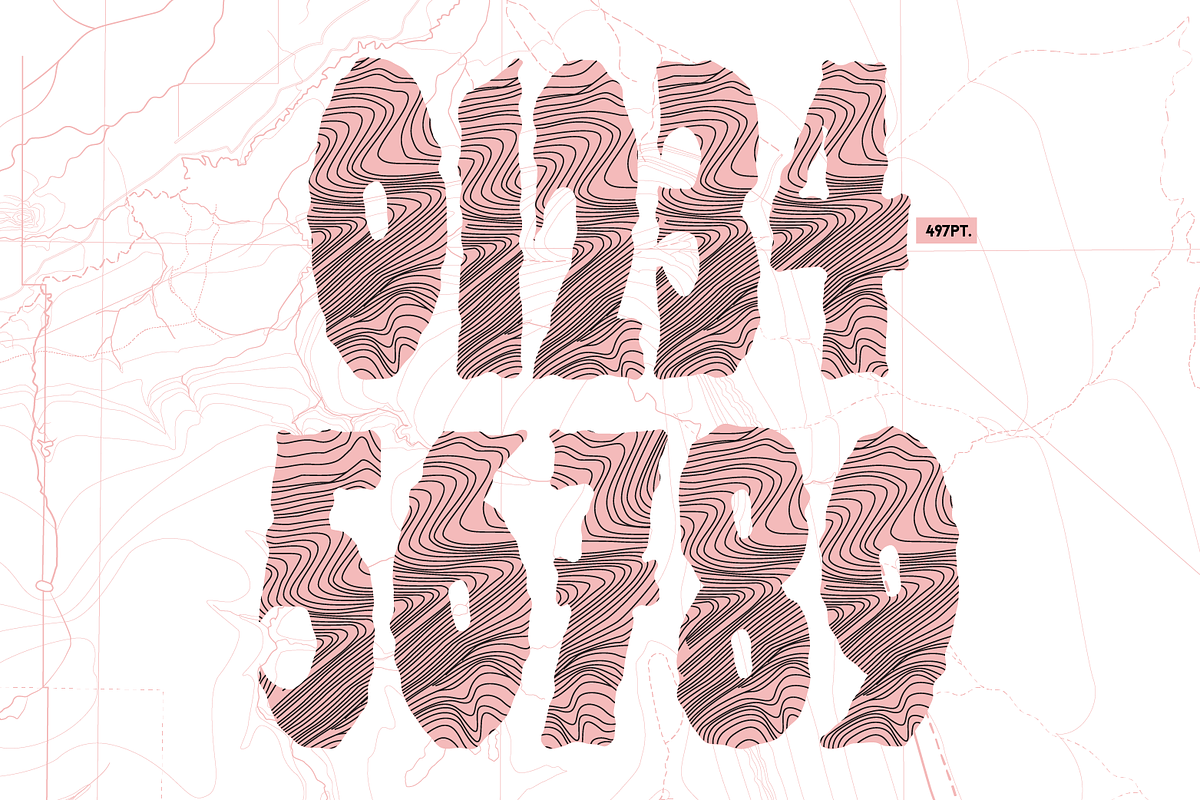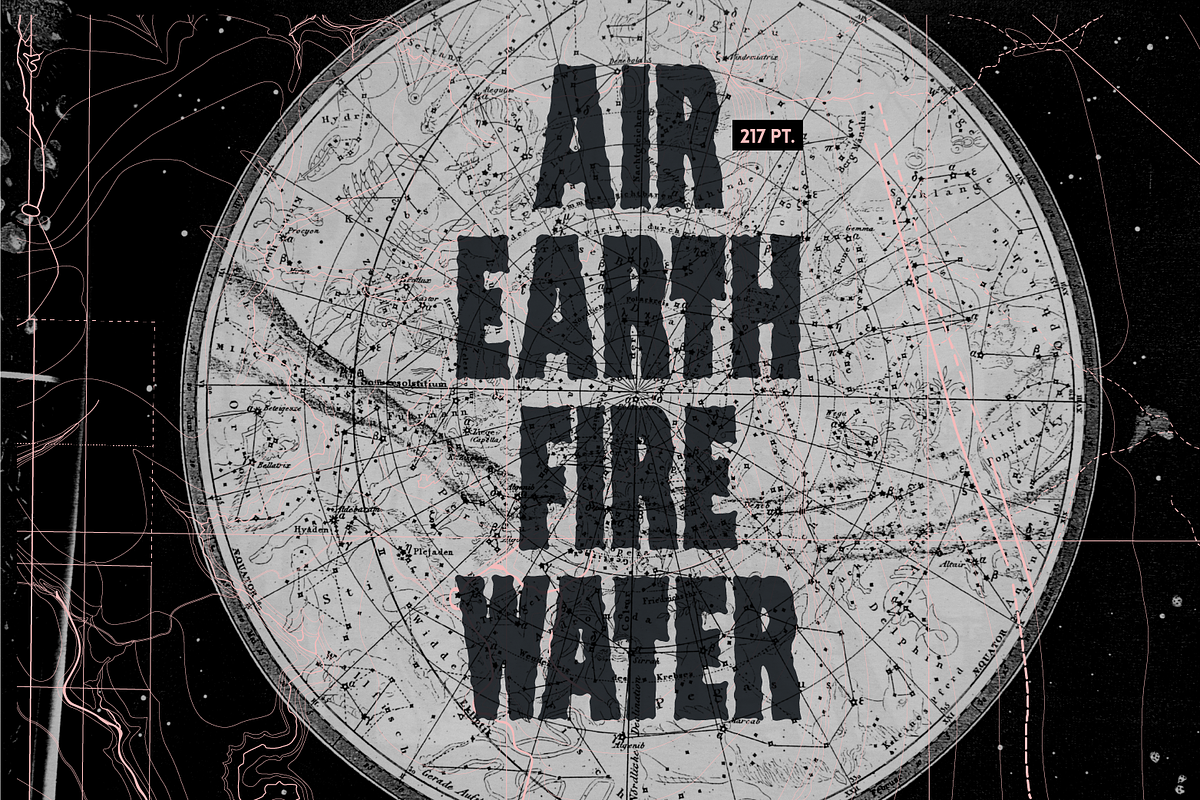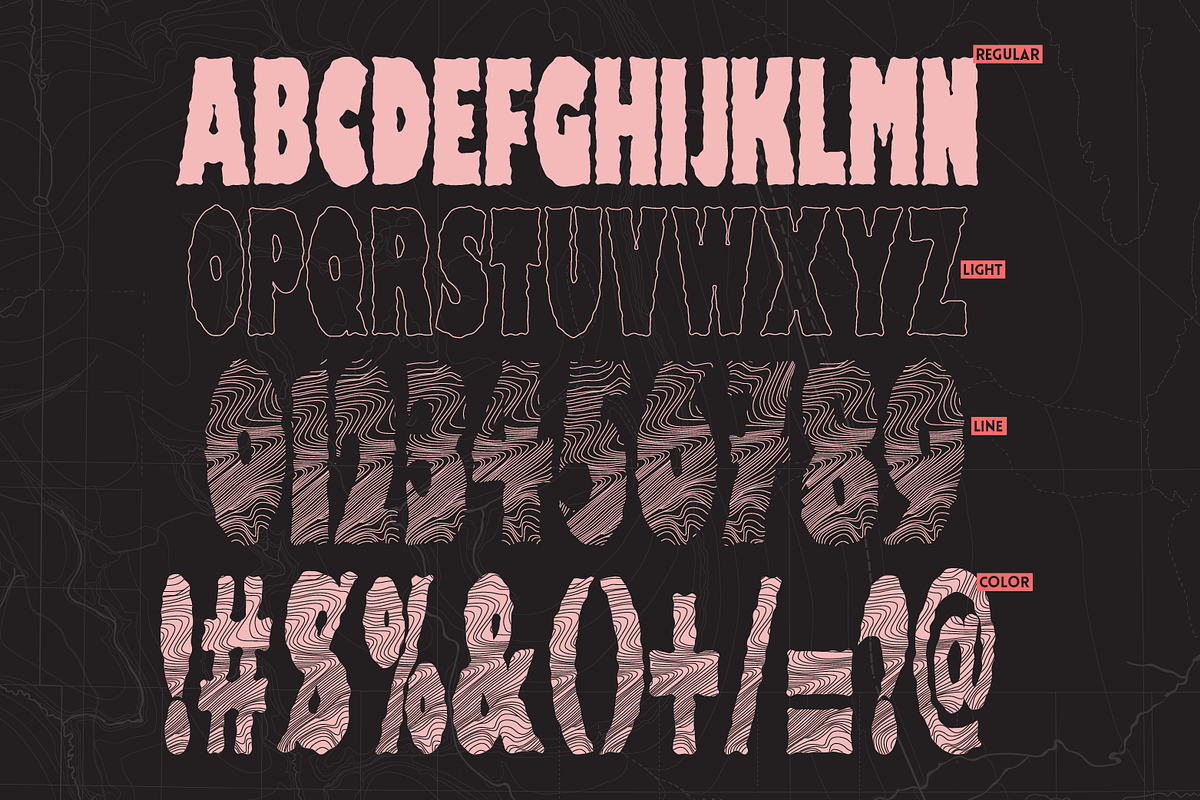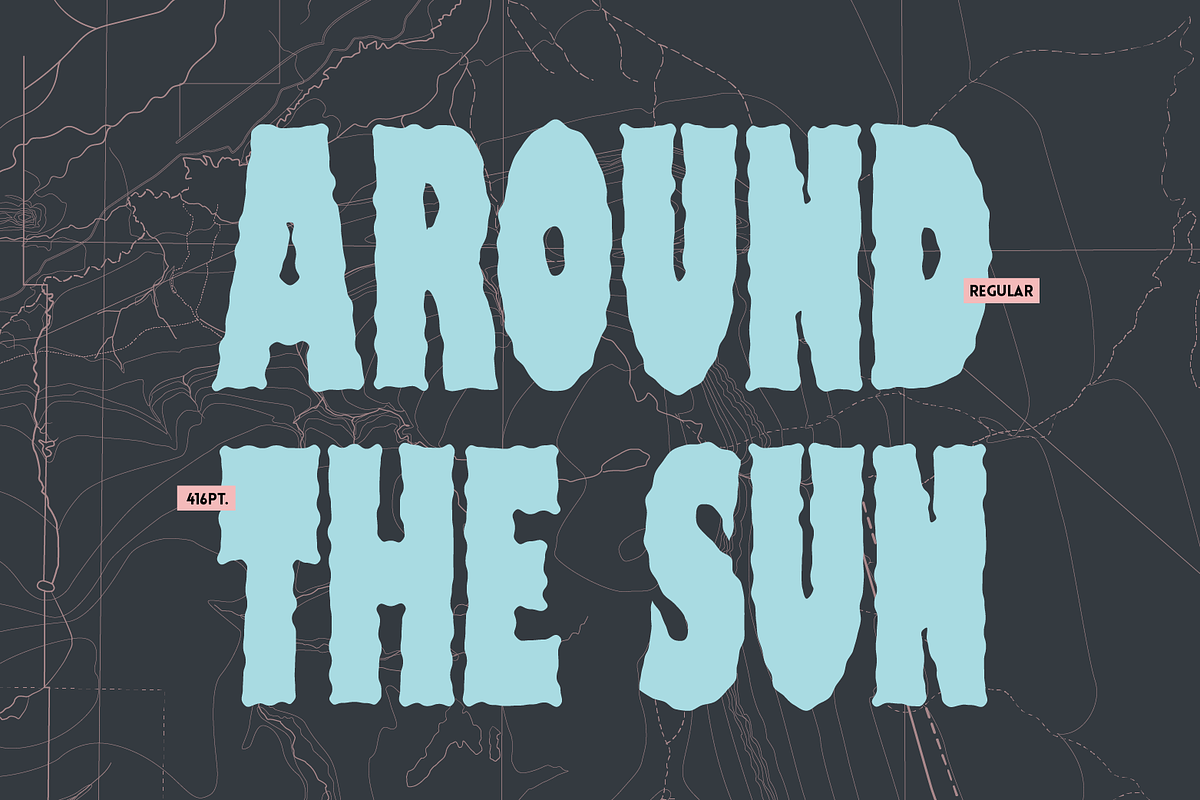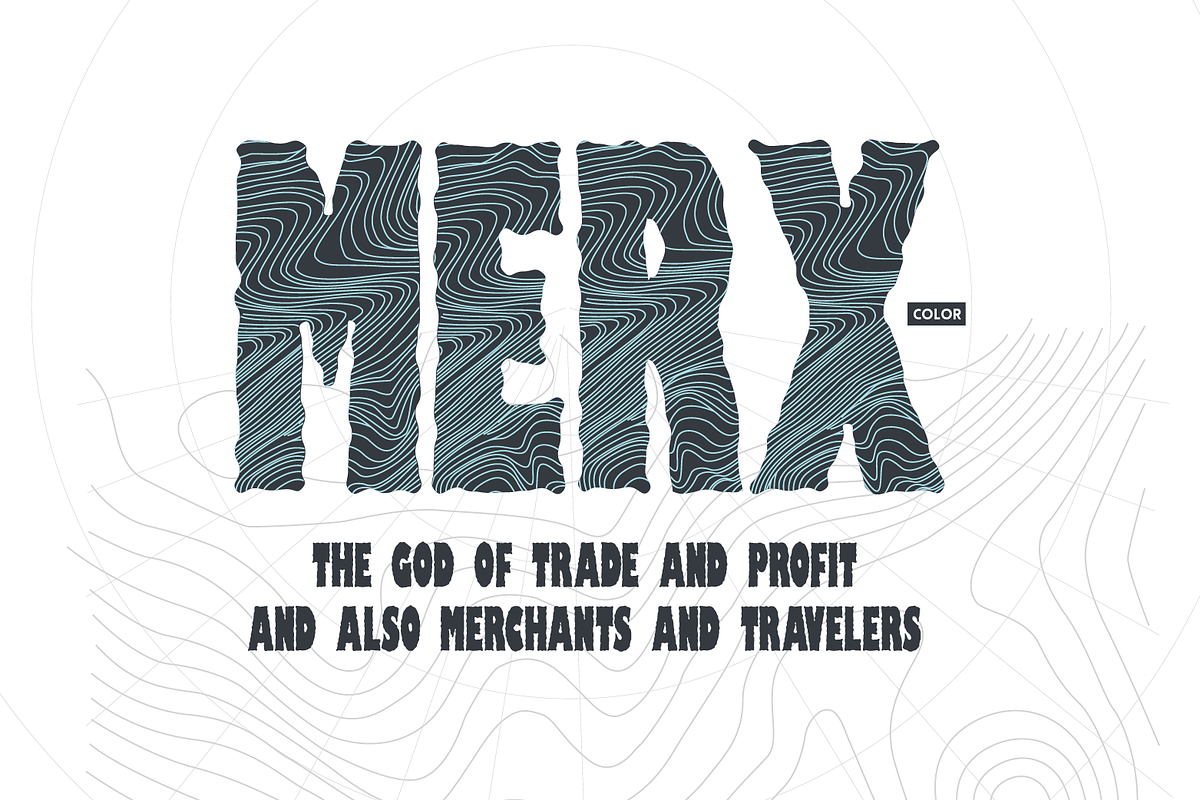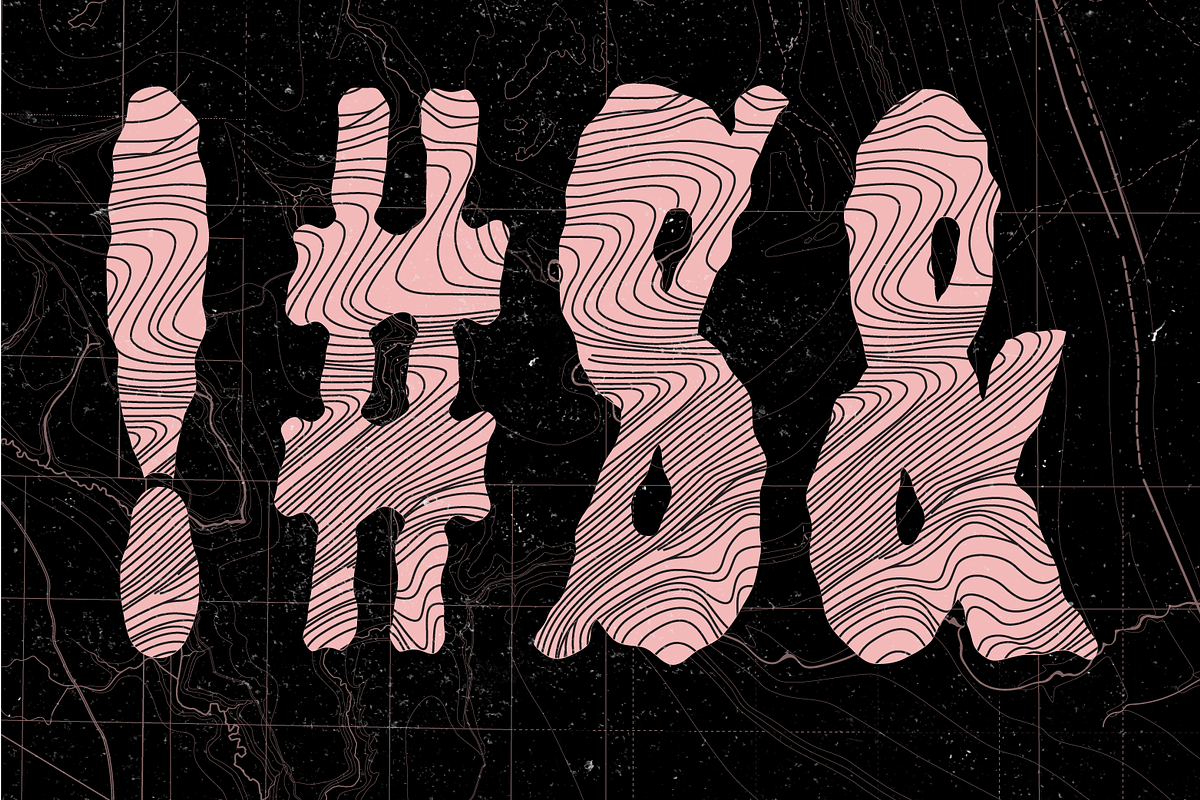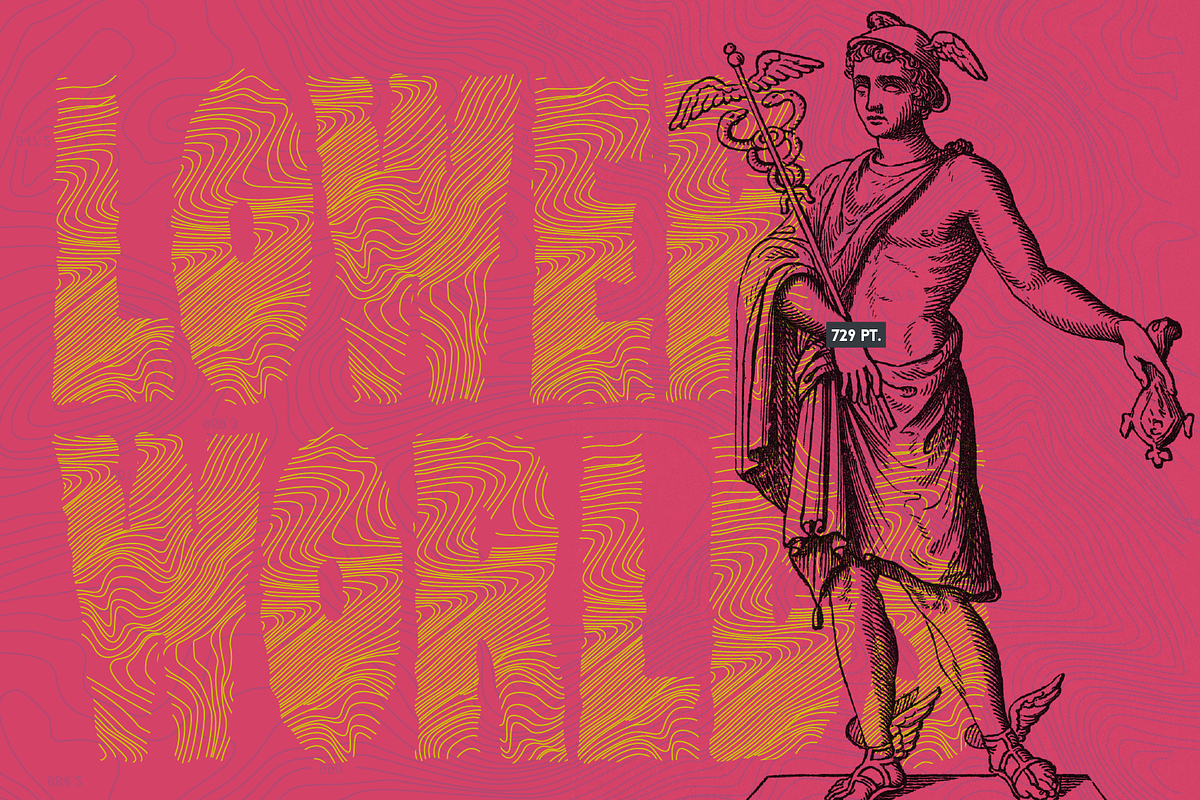
Mercurio SVG Font
Beautiful and modern SVG type with 4 variables (Regular, Light, Line, Color)
Mercurio SVG Font by yaisalinas fits naturally into Branding, posters, packaging, typography.